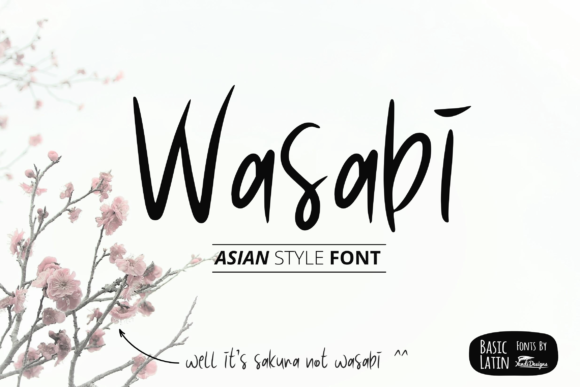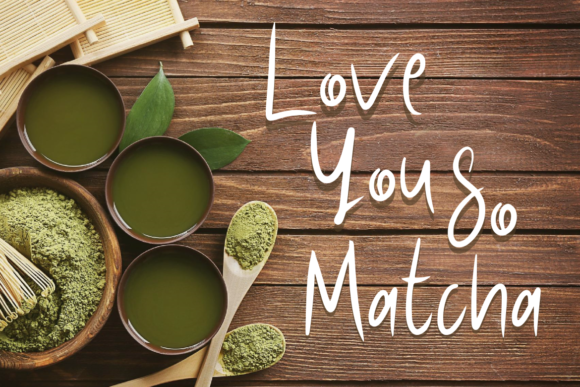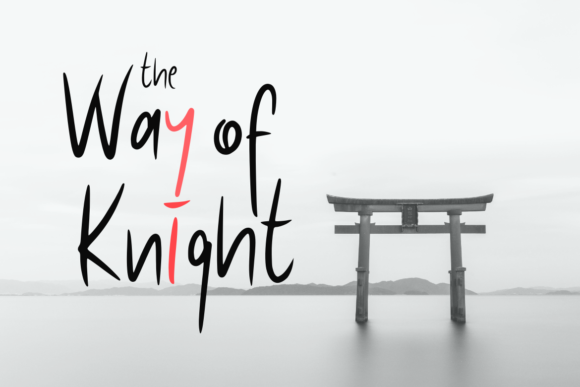
Wasabi Font
About Wasabi Font
Wasabi is a simple and modern handwritten font suitable for projects such as logos, book covers, t-shirt designs and much more.
Give your next design personality with this lovely font.